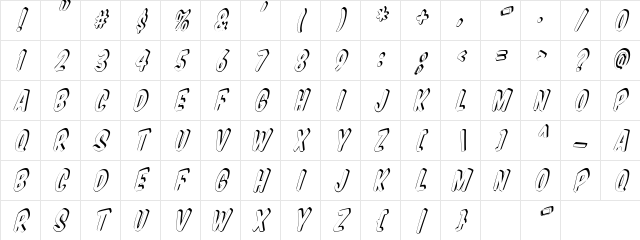
VTCSuperMarketSuperSale3DTilt Regular Free Font
VTCSuperMarketSuperSale3DTilt Regular
Designer: WolfBainX
Design Context for VTCSuperMarketSuperSale3DTilt
VTCSuperMarketSuperSale3DTilt is a composed and adaptable typeface that performs quietly and consistently across a wide range of design contexts.